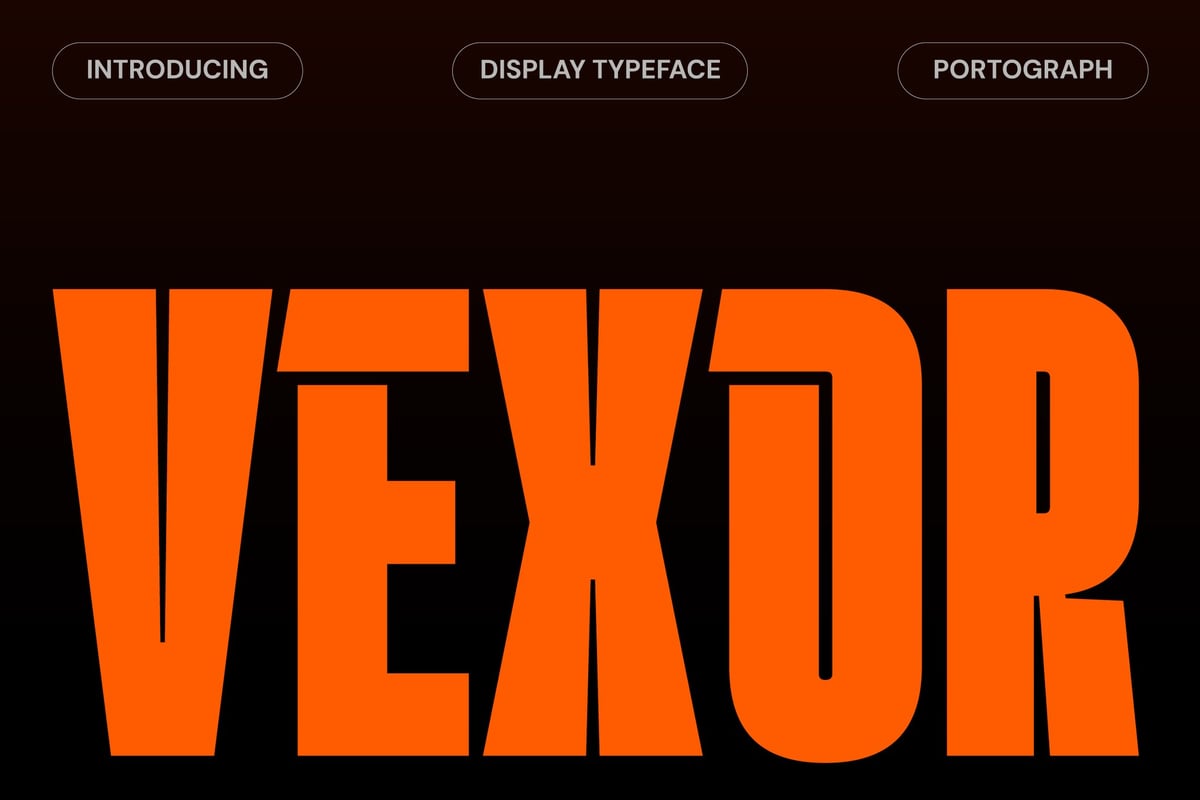
Vexor – Condensed Font
Command attention with Vexor – a bold condensed display font engineered for maximum visual impact and modern aesthetics. This powerhouse typeface combines tall proportions with razor-sharp edges and solid weight to deliver an unmistakably confident look that dominates any design. The clean yet aggressive styling ensures perfect clarity and strength across both digital and print applications that demand modern appeal. Vexor provides comprehensive character coverage for professional creatives, fea...